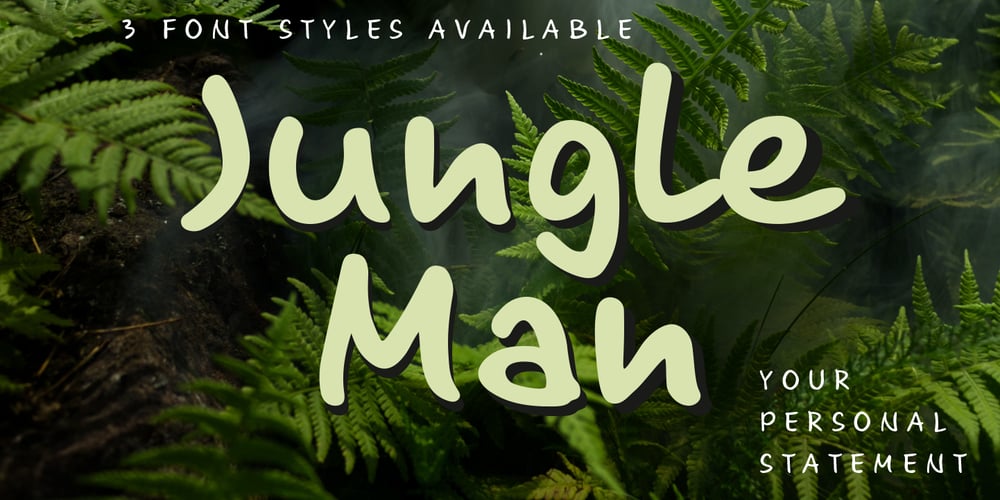
Jungle Man Font Family was designed by Wolfram Pleger and published by PleasureFonts. Jungle Man contains 3 styles and family package options. Looking for a typeface with a unique appearance? Jungle Man is the right choice for advertising, graphic design and webdesign to make a personal statement. And when it comes to readability, you are on a safe side by using Jungle Man. There are numerous occasions where a handwritten font makes a great impression.